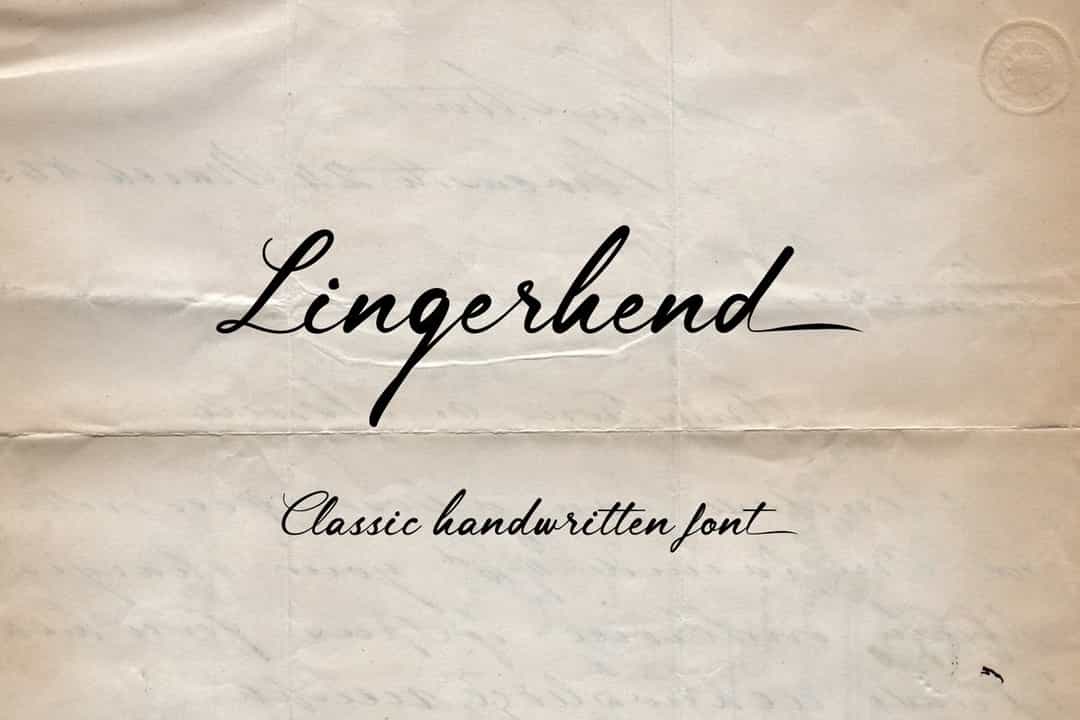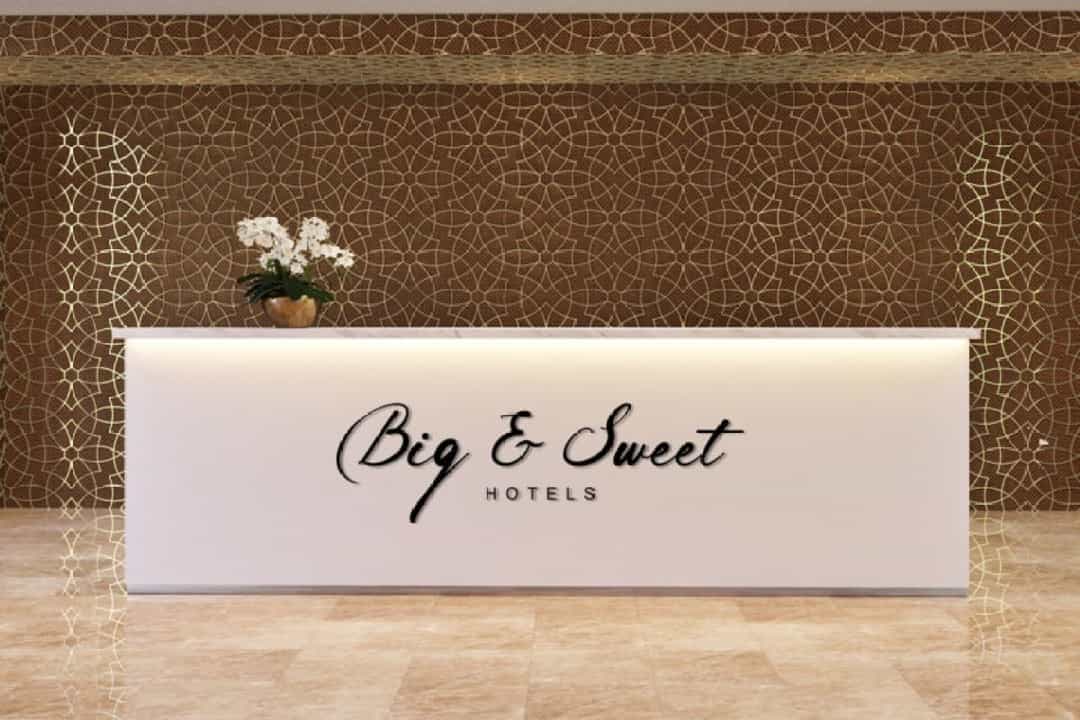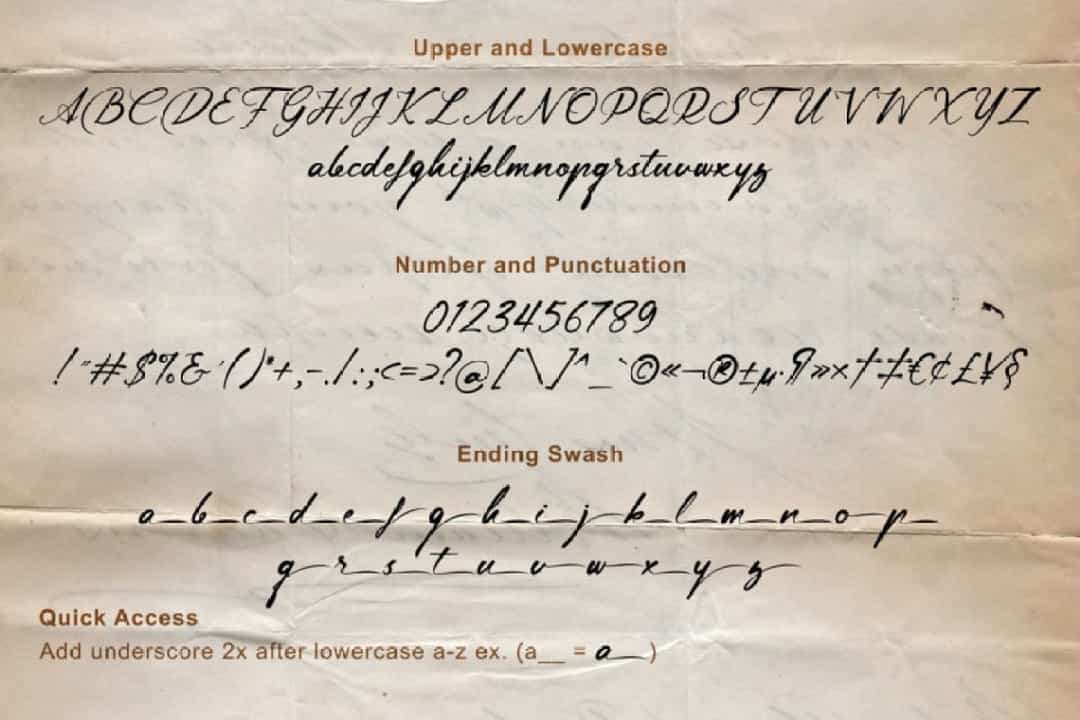
Lingerhend is an elegant old-fashioned handwritten script font, it is the perfect font for vintage style designs. Great for wedding invitations and stationery, for photographs, for social media, for packaging and for cards; Lingerhend can be used for a lot of things!